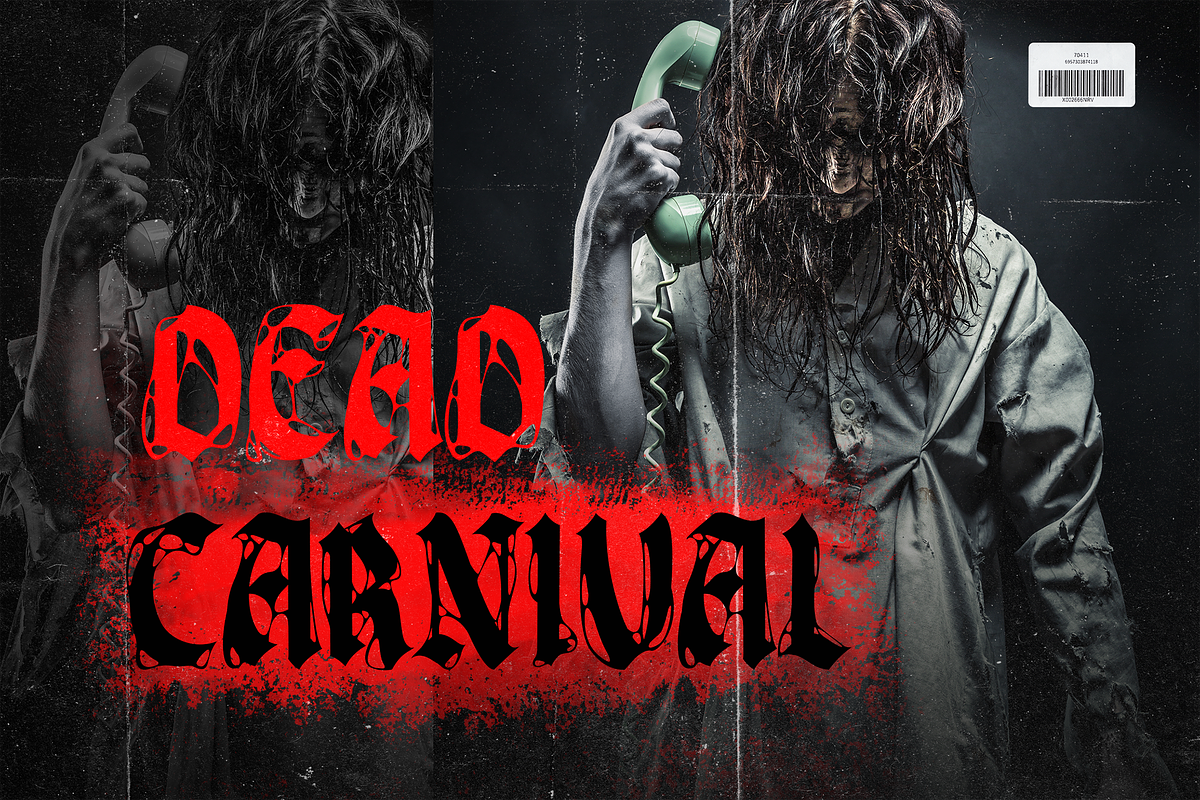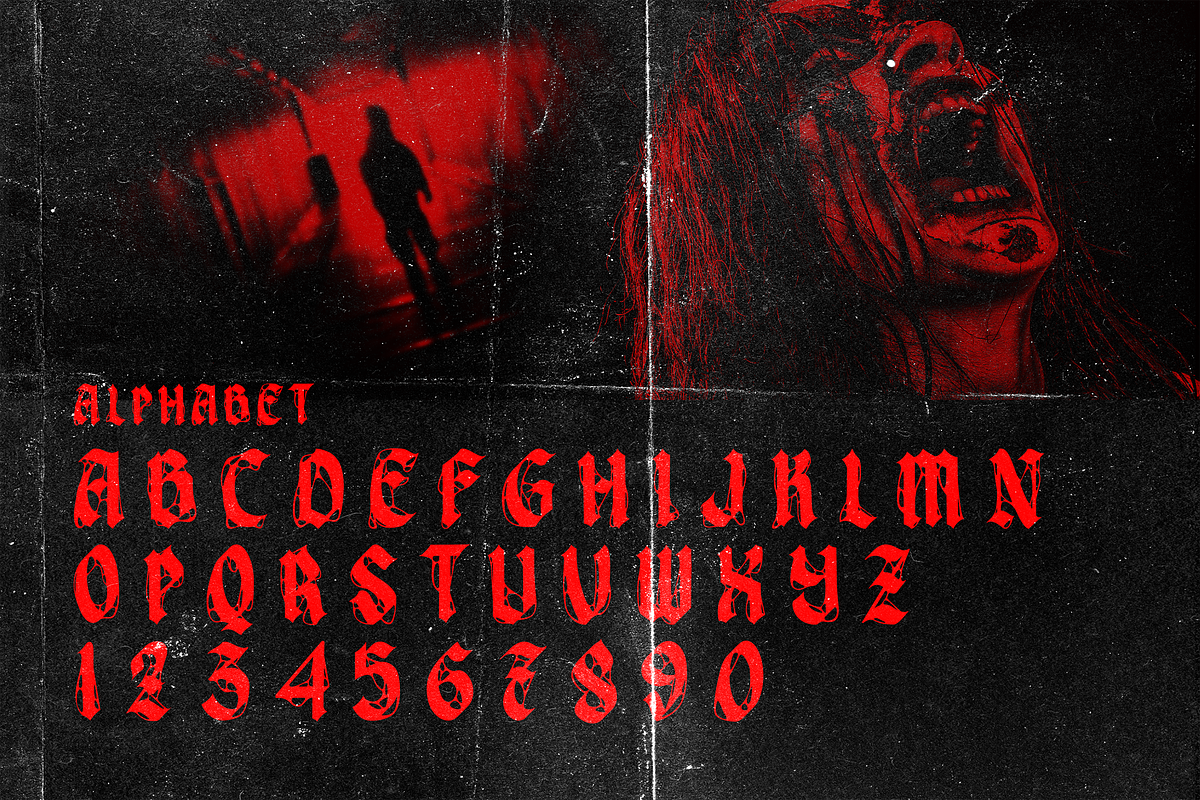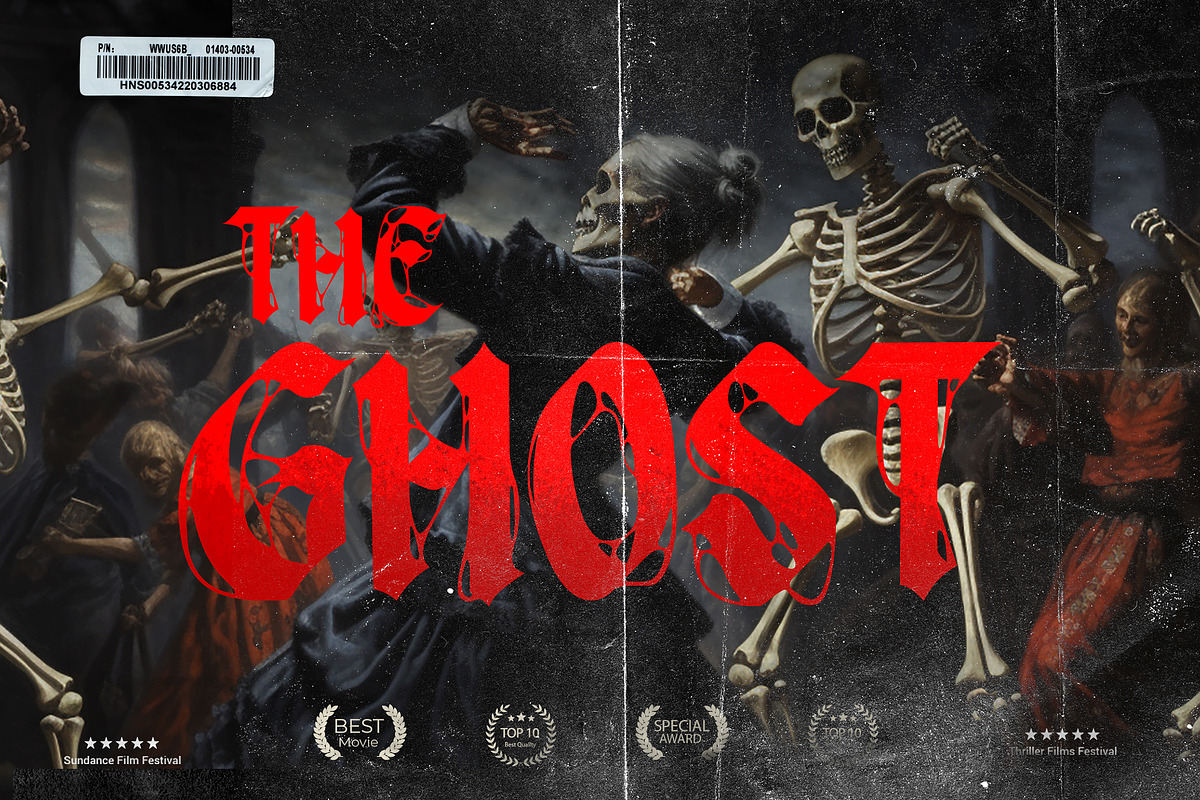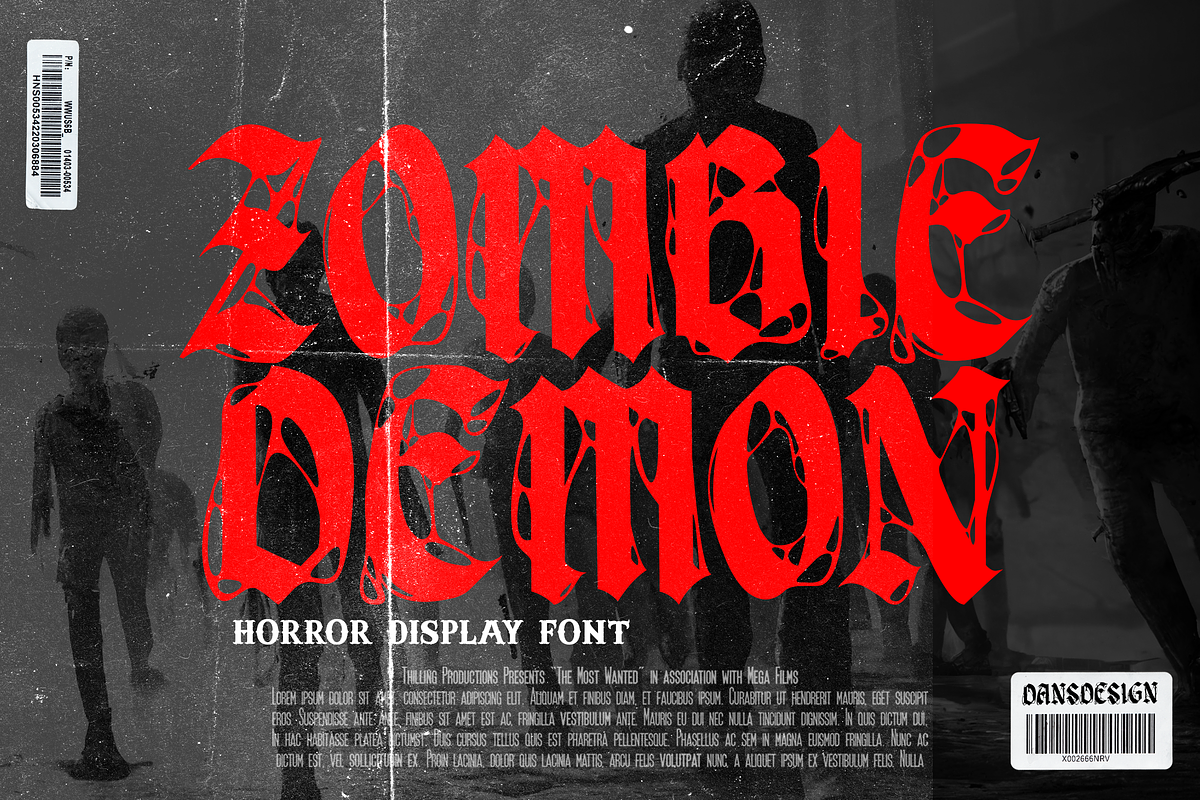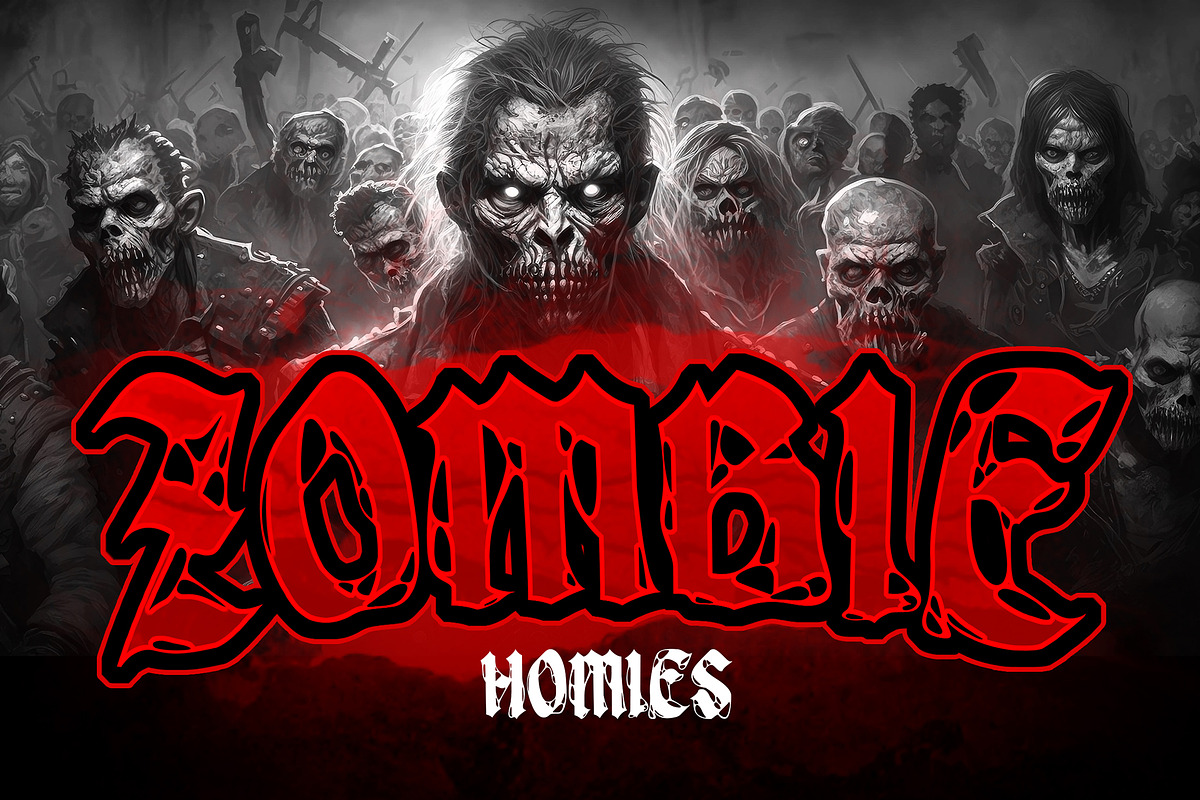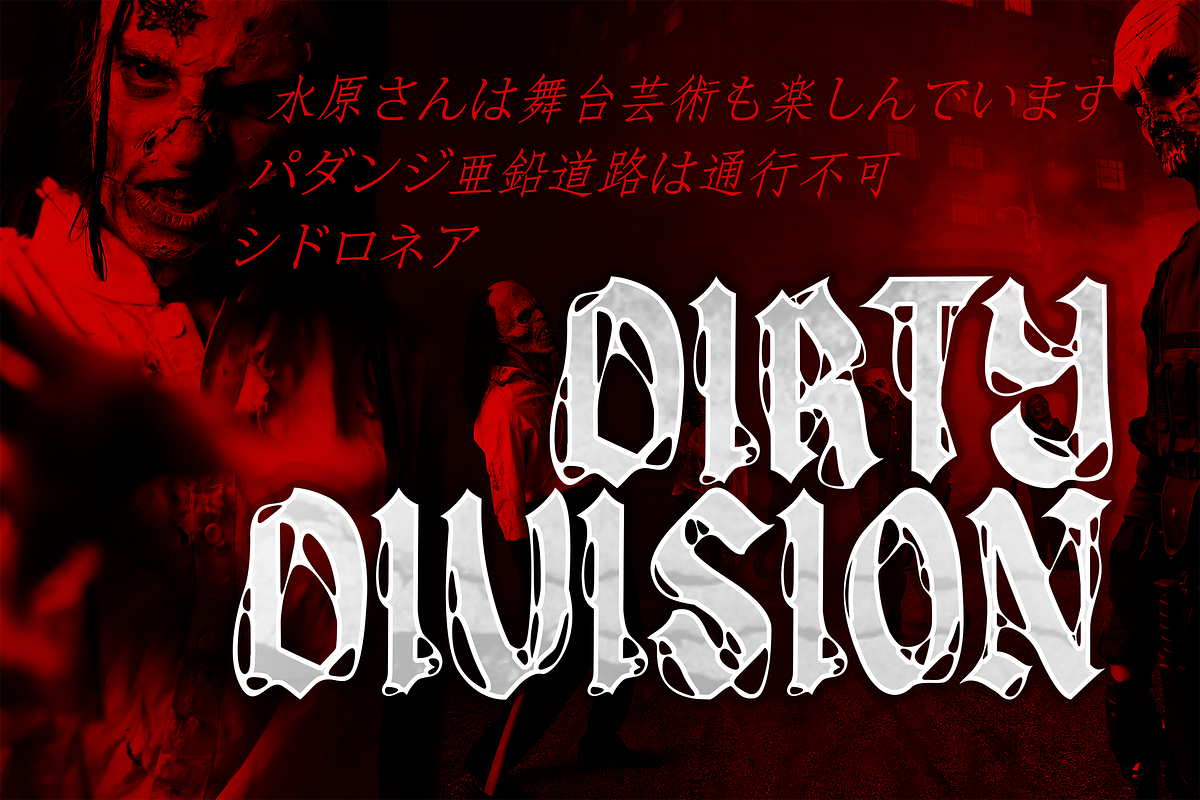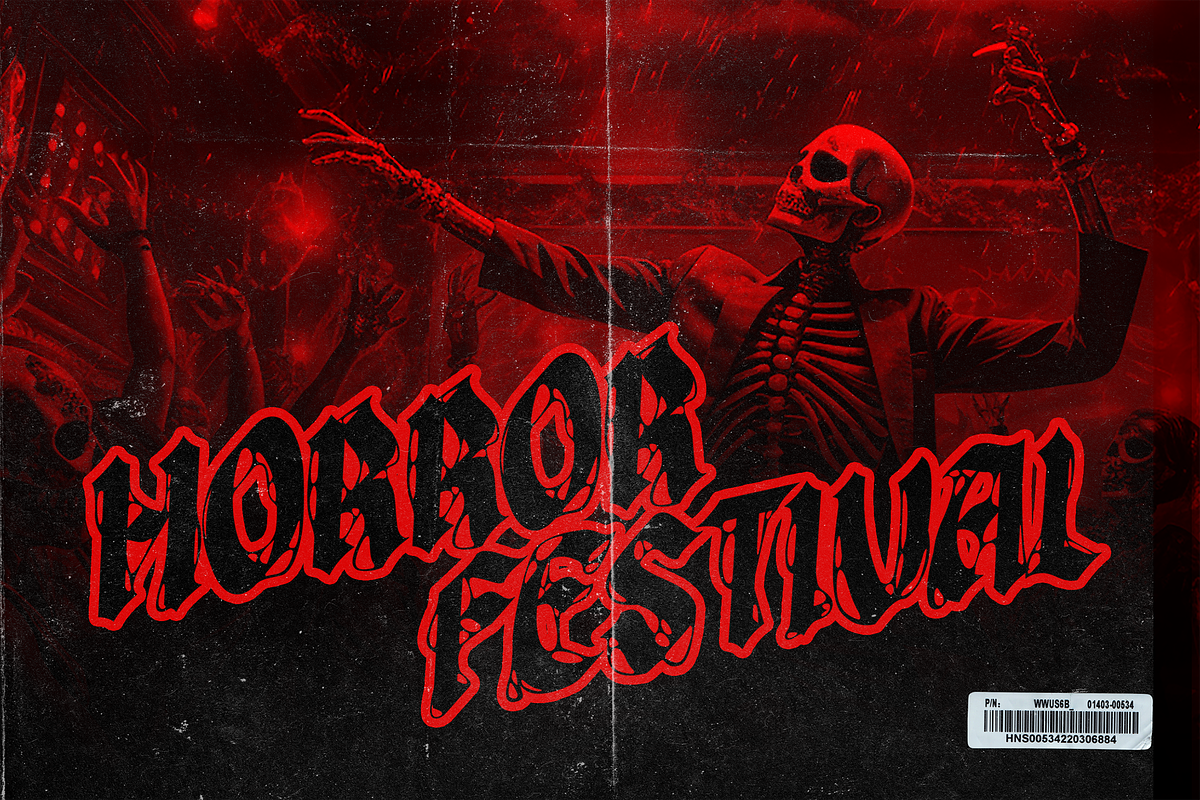
Zombie Demon Metal Horror Display
Zombie Demon Metal Horror Display Font
Zombie Demon Metal Horror Display Font is a distinct, highly detailed, and Horror Metal Font font. It would make a great choice for exquisite Music, Poster, retro-urban designs, tattoo business branding, logos, vintage designs, and more.